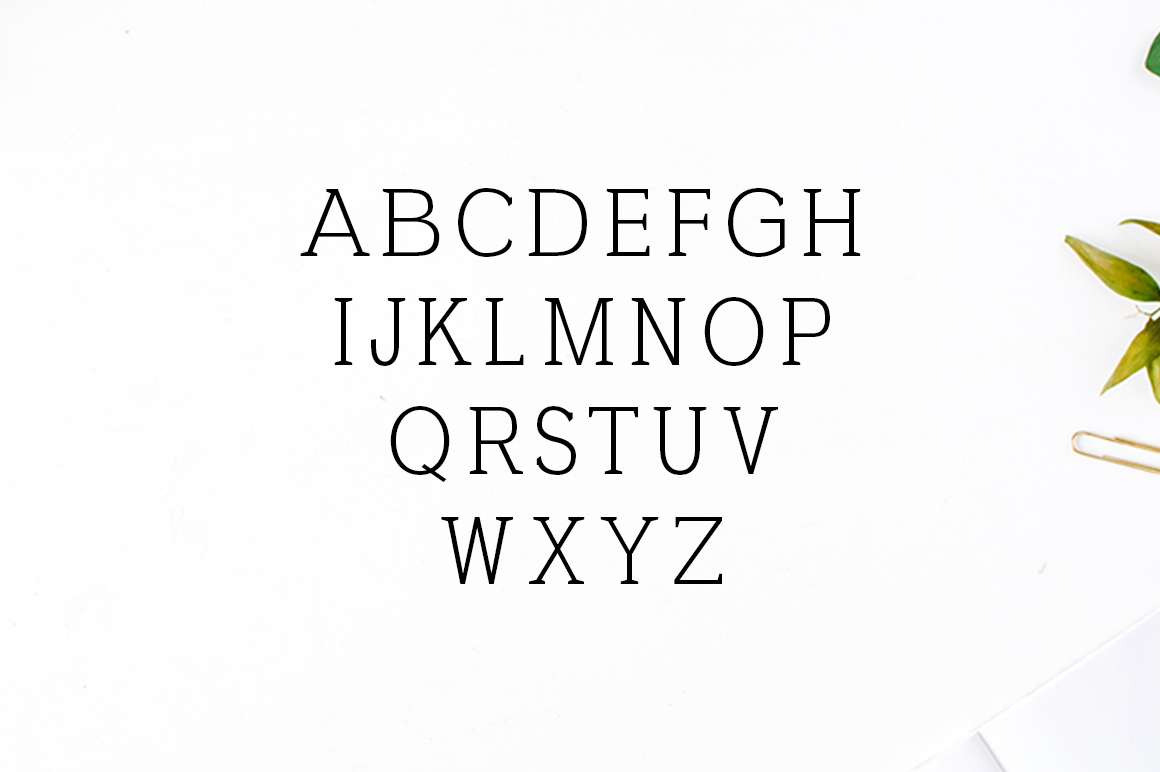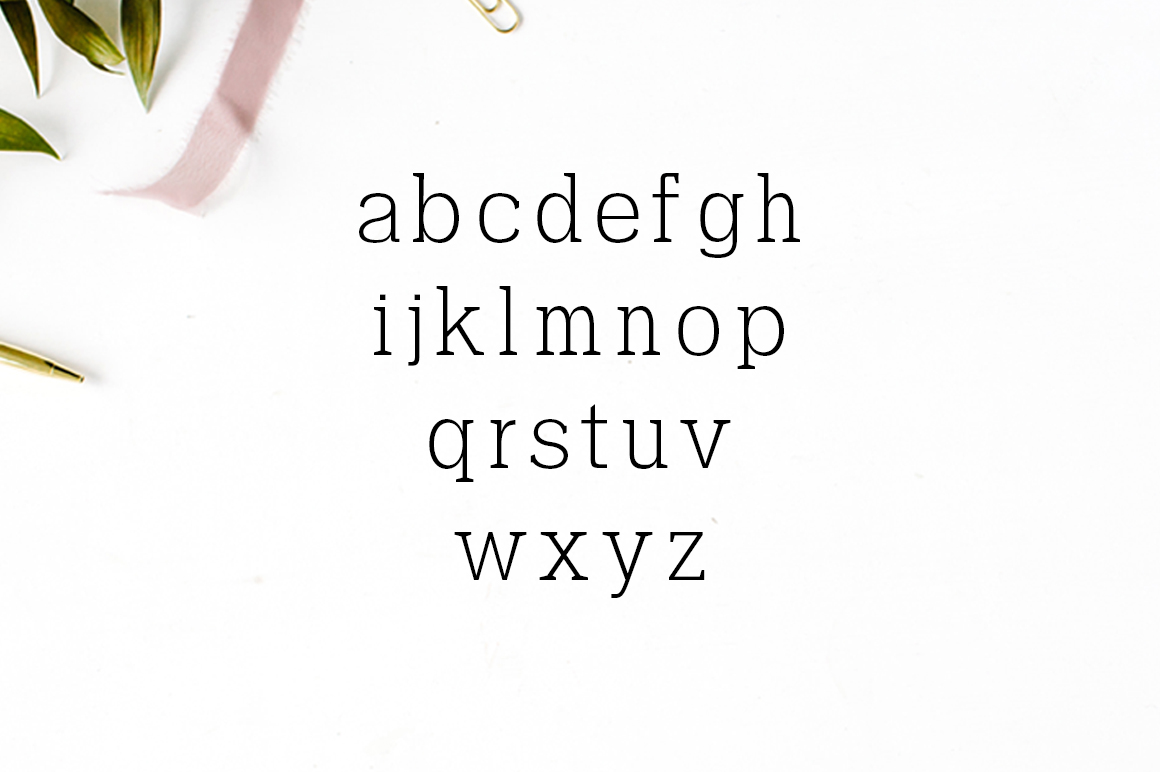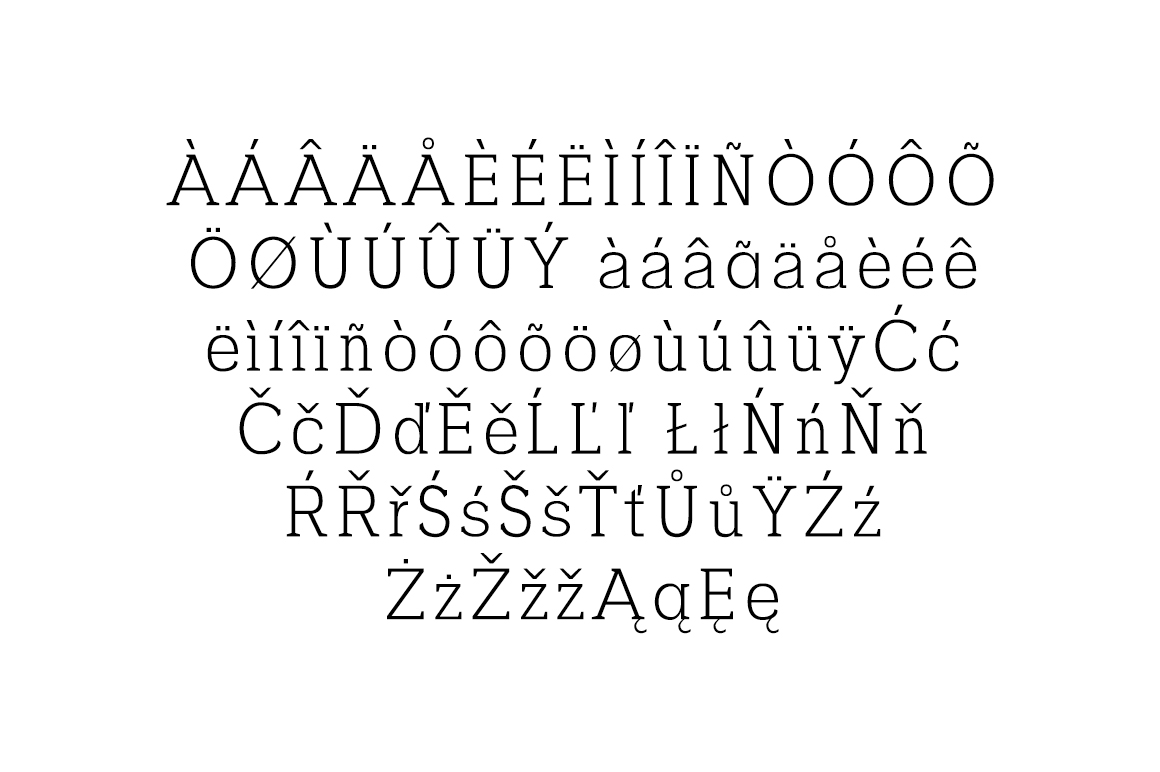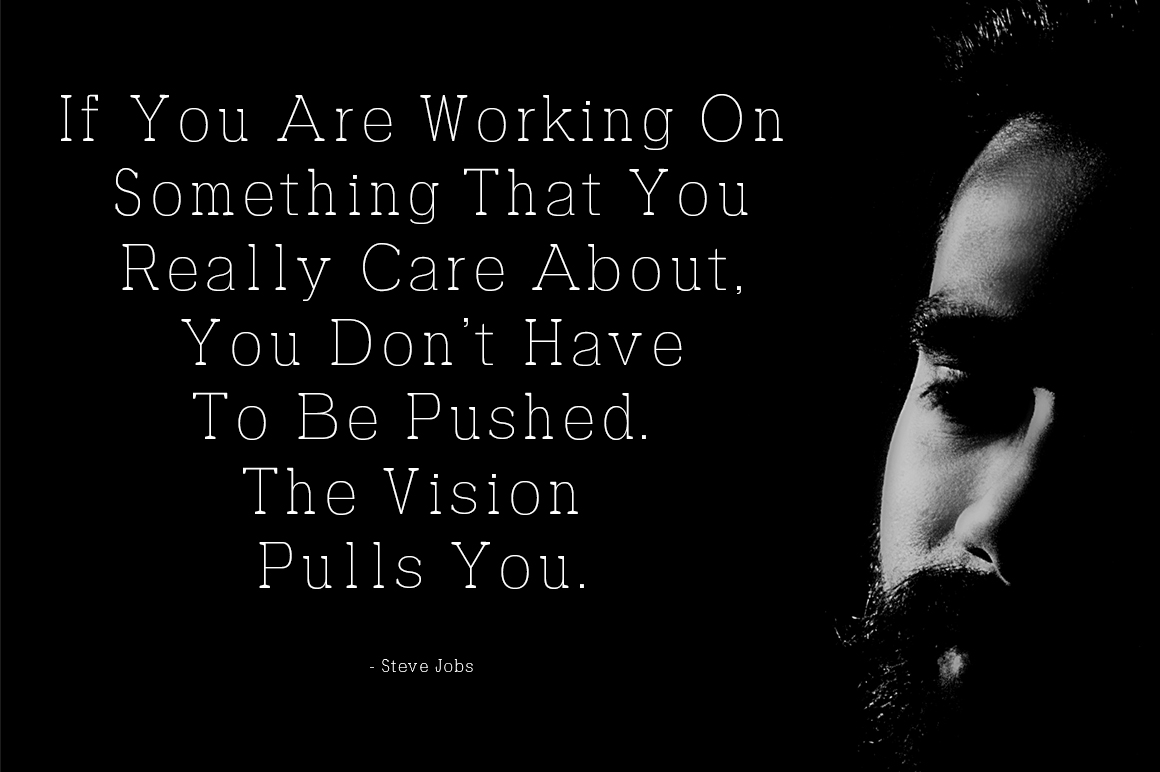
The Ahijah Font: A Timeless Fusion of Classic and Modern Appeal
I’ll never forget the design project that led me to discover the Ahijah font. I was working on a branding project for a new coffee shop, and I was struggling to find the perfect font that would convey a sense of warmth, sophistication, and playfulness. The client wanted a font that would appeal to a wide range of audiences, from young creatives to coffee connoisseurs. After hours of searching, I stumbled upon Ahijah, and it was love at first sight. ✨
A Personal Review of Ahijah
• ✅ Clean and minimal serif design that exudes elegance and sophistication
• ✨ Monoline appeal that gives it a modern and fresh feel
• ✅ Perfect for a wide range of applications, from branding and advertising to packaging and digital media
• 💡 Highly legible, even at small font sizes
While Ahijah is an excellent font, it’s not perfect. Here are a few quirks to keep in mind:
• ⚠️ Some users may find the font a bit too minimalist for certain applications, such as body text or long-form reading.
• 🤔 The font may not be the best choice for very large or very small font sizes, as it can lose some of its elegance and legibility.
The Backstory of Ahijah
Ahijah was designed by a team of typographers who wanted to create a font that would blend the classic appeal of traditional serif fonts with the modern feel of contemporary design. The font was inspired by the simplicity and elegance of classic typography, combined with the clean lines and minimalism of modern design.
Q: What is the Ahijah font?
A: Ahijah is a clean and minimal serif typeface that’s perfect for a wide range of applications, from branding and advertising to packaging and digital media.
Q: Is Ahijah suitable for body text?
A: While Ahijah is highly legible, it may not be the best choice for long-form reading or body text. It’s better suited for headlines, titles, and short-form text.
Q: Is Ahijah a versatile font?
A: Yes, Ahijah is a highly versatile font that can be used in a wide range of applications, from elegant and sophisticated designs to modern and playful ones.